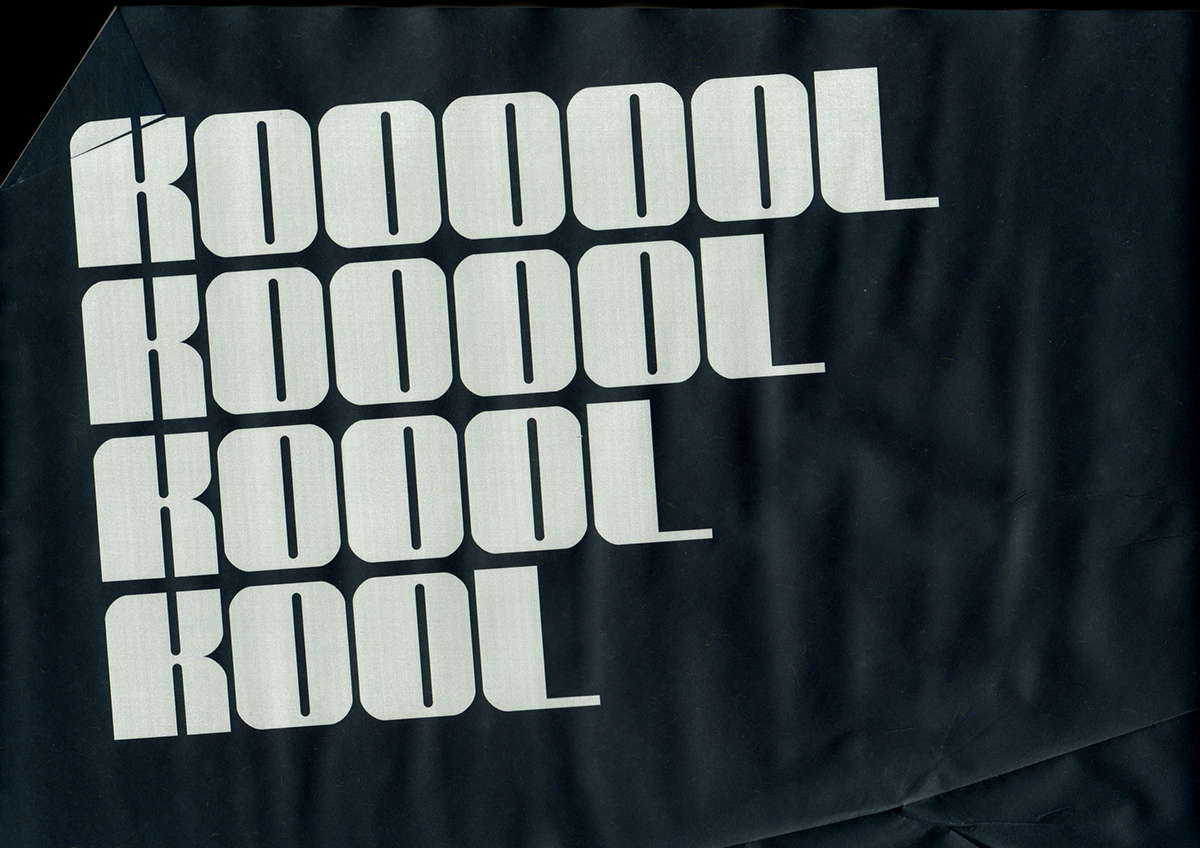
Quezon Typeface – FREE/PWIW
Earlier in the week to present you a new typeface, Quezon is a humanist typeface, Quezon Typeface designed and shared by Kimchi Lee, a designer from Quezon City, Philippines, the name of the font is named after the city, where she lived. Quezon was inspired by a mixture of art deco, the ancient Filipino script “Baybayin”, and the old buildings of Metro Manila still standing today. This is meant for headlines, subcopy or short paragraphs and it currently comes with a few symbols and limited glyphs with accents.